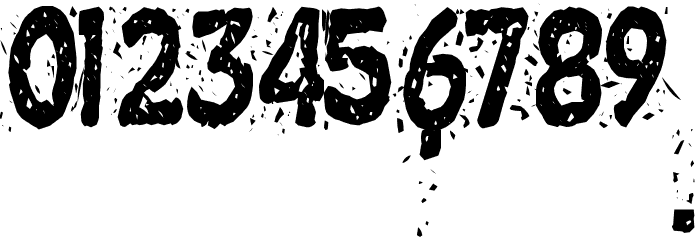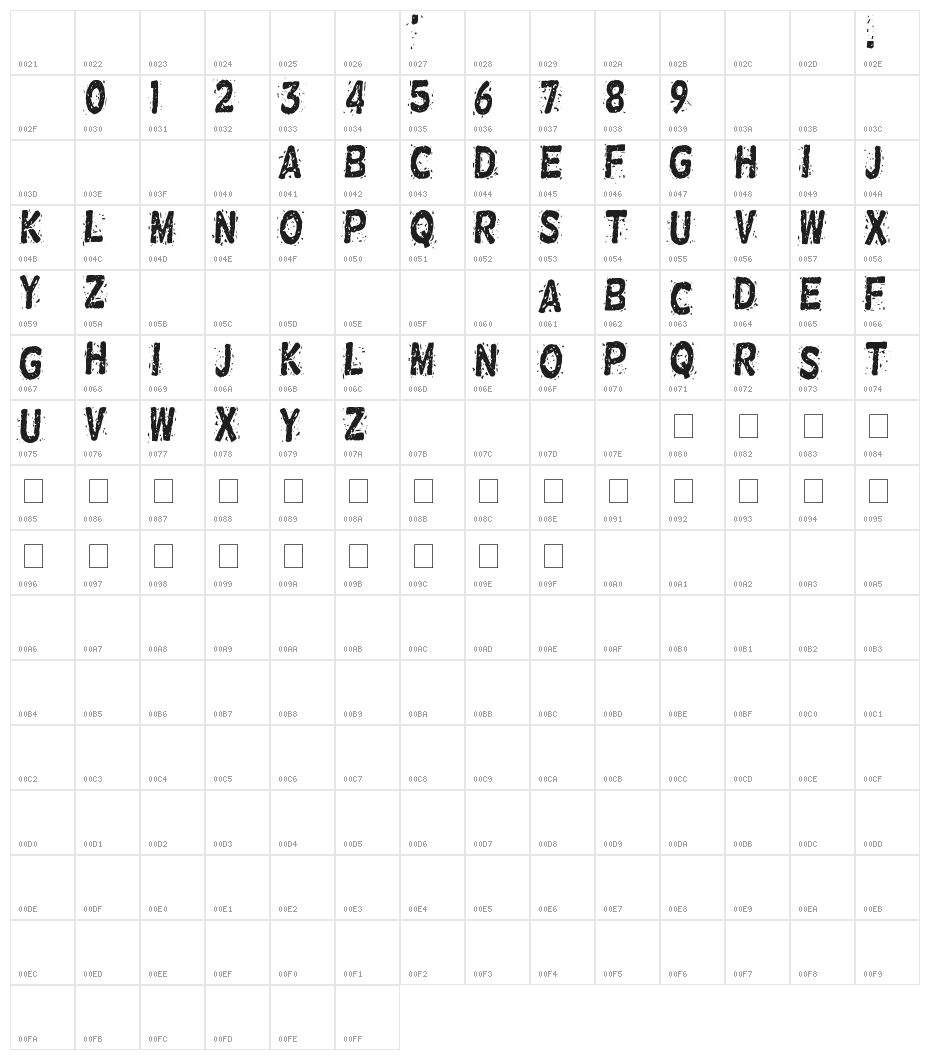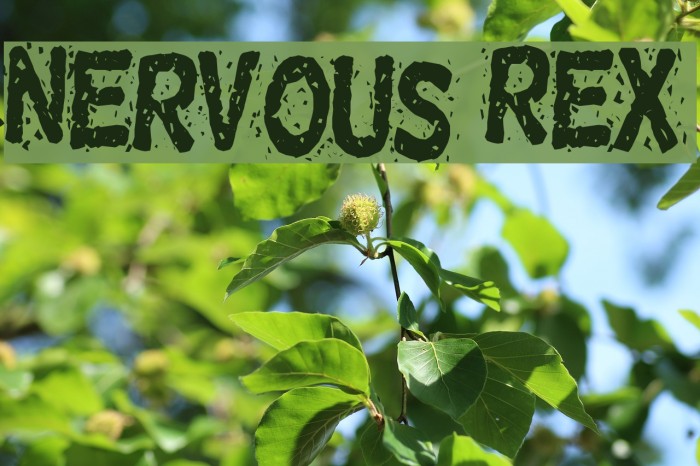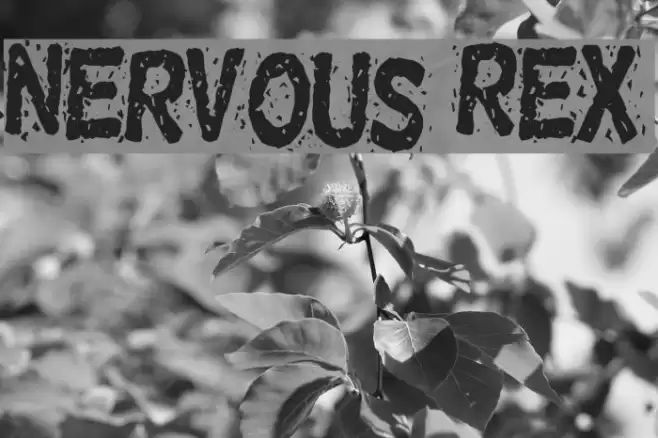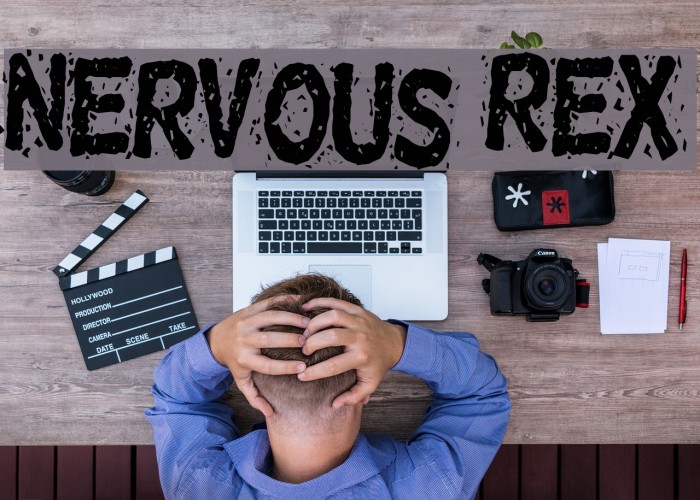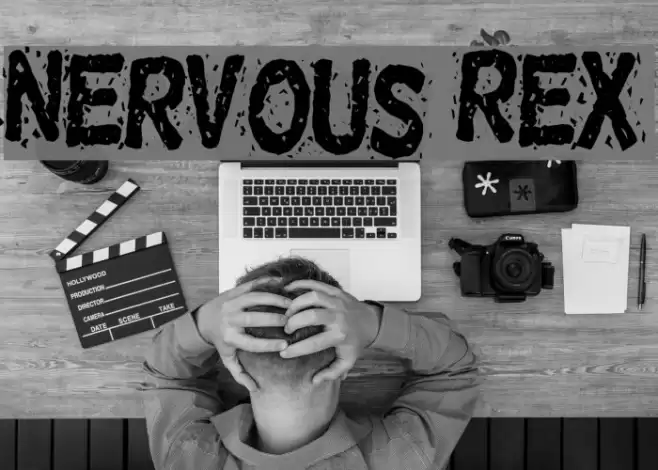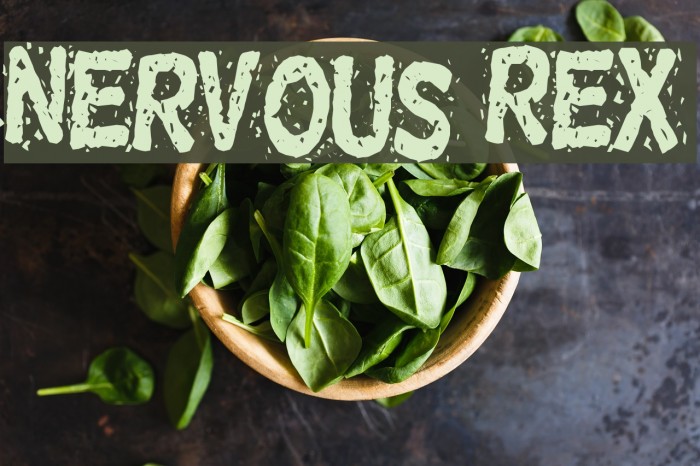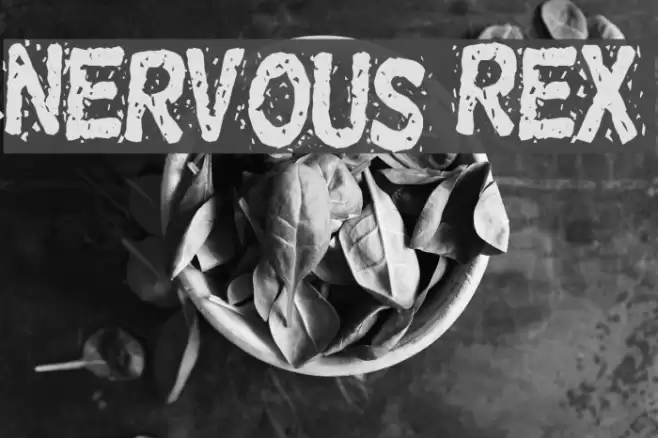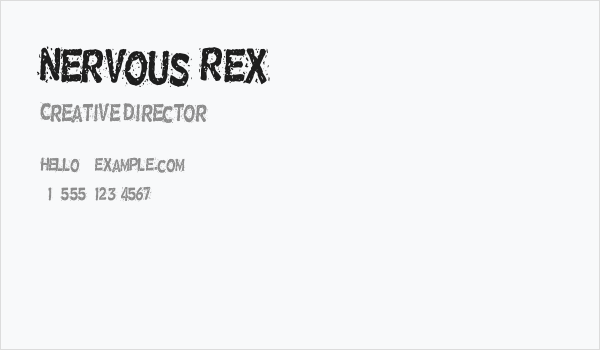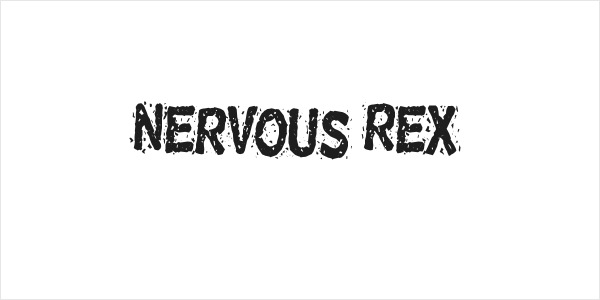
Nervous Rex Font
Nervous Rex Description
This font features a bold, distressed style with a rough, textured appearance, reminiscent of grunge or urban graffiti. The characters are uppercase and numerals, each with a unique, weathered look that adds a sense of ruggedness and edginess. The irregular edges and inconsistent line thickness contribute to its dynamic and energetic feel, making it ideal for designs that require a bold statement. The font's chaotic texture suggests a sense of movement and unrest, perfect for projects that aim to capture attention and convey a rebellious or unconventional theme.
| Overall Style | Grunge, Urban, Edgy |
| Proposed Projects | Ideal for album covers, posters, streetwear branding, and edgy graphic designs. |